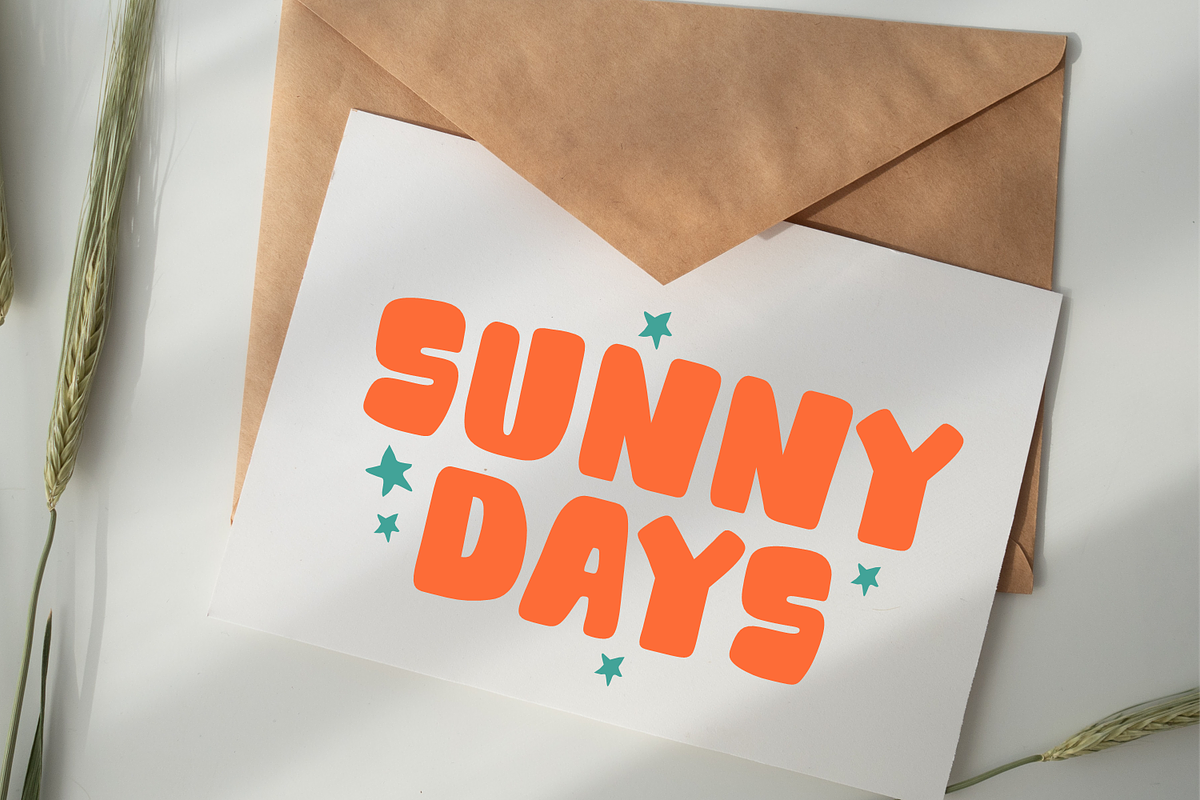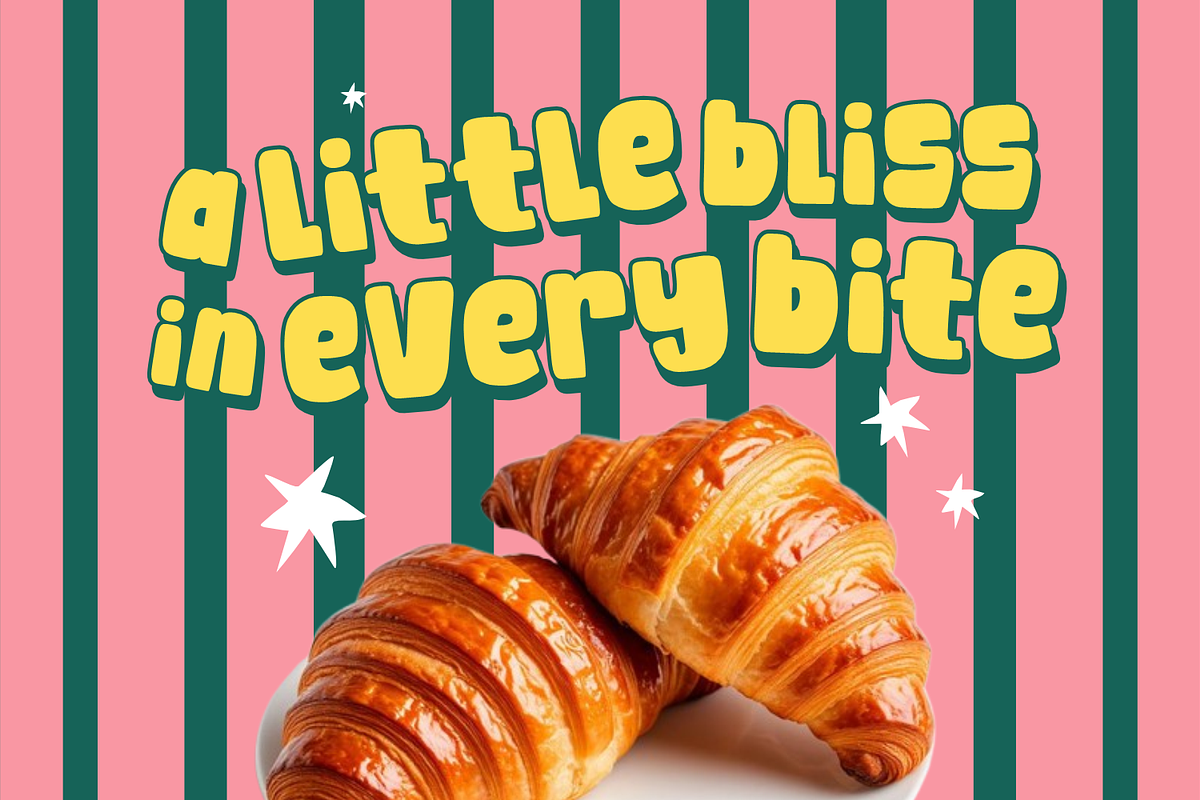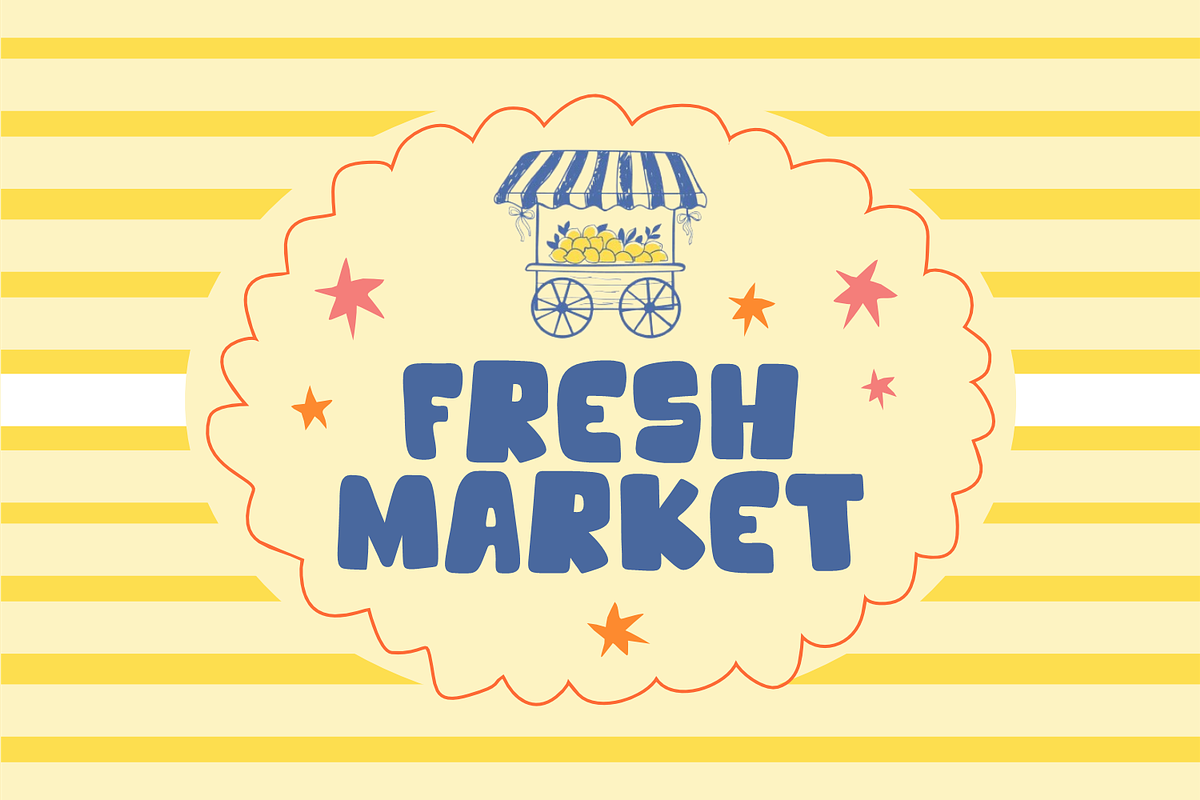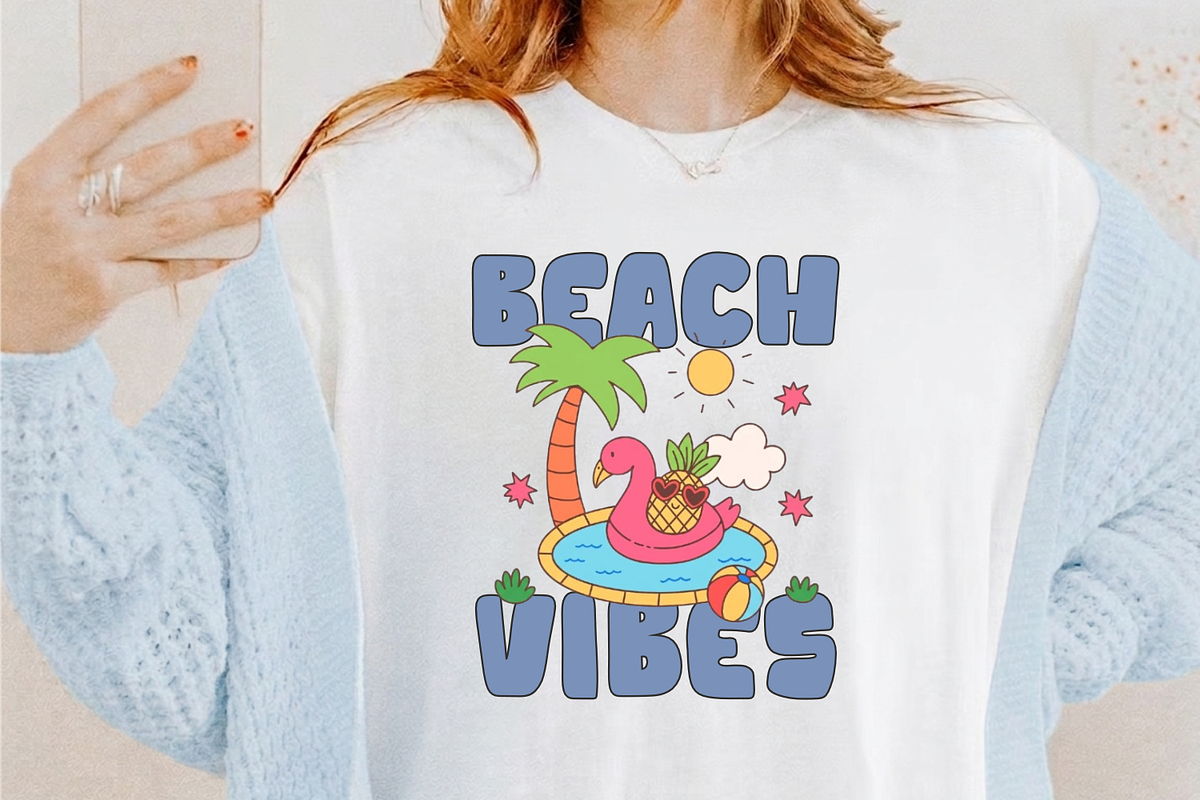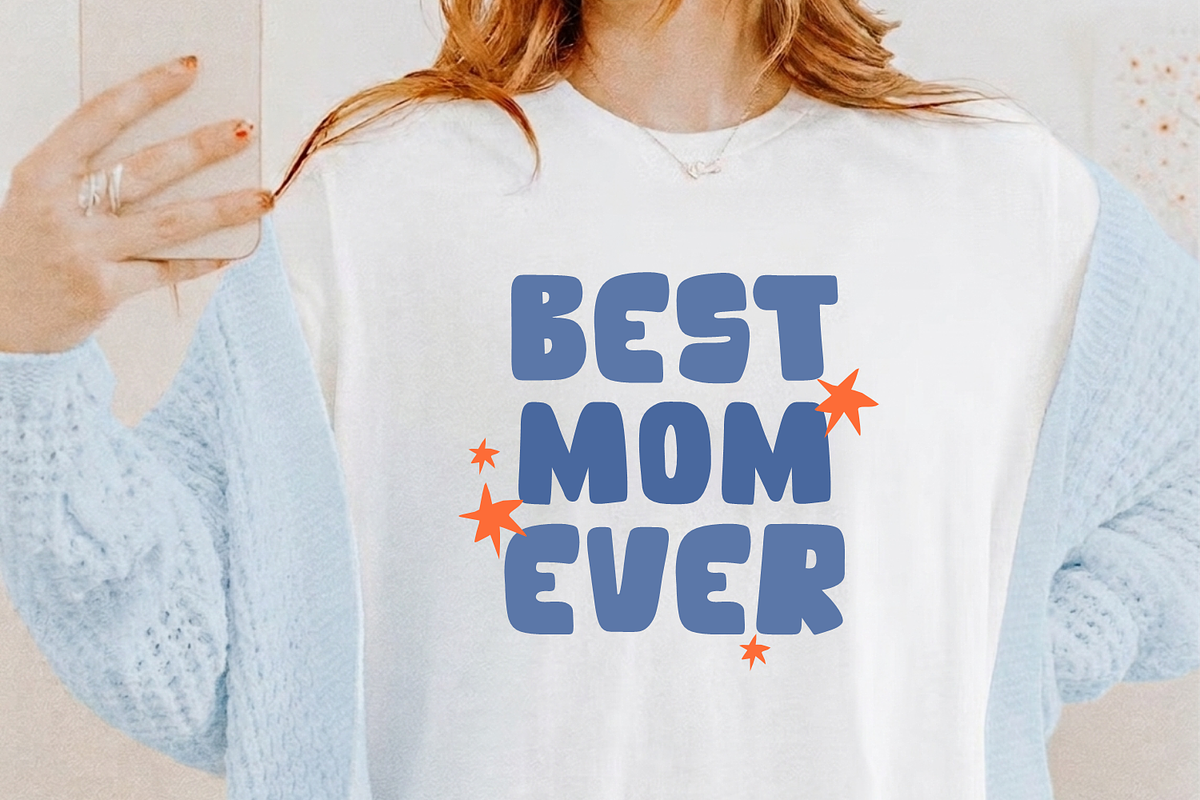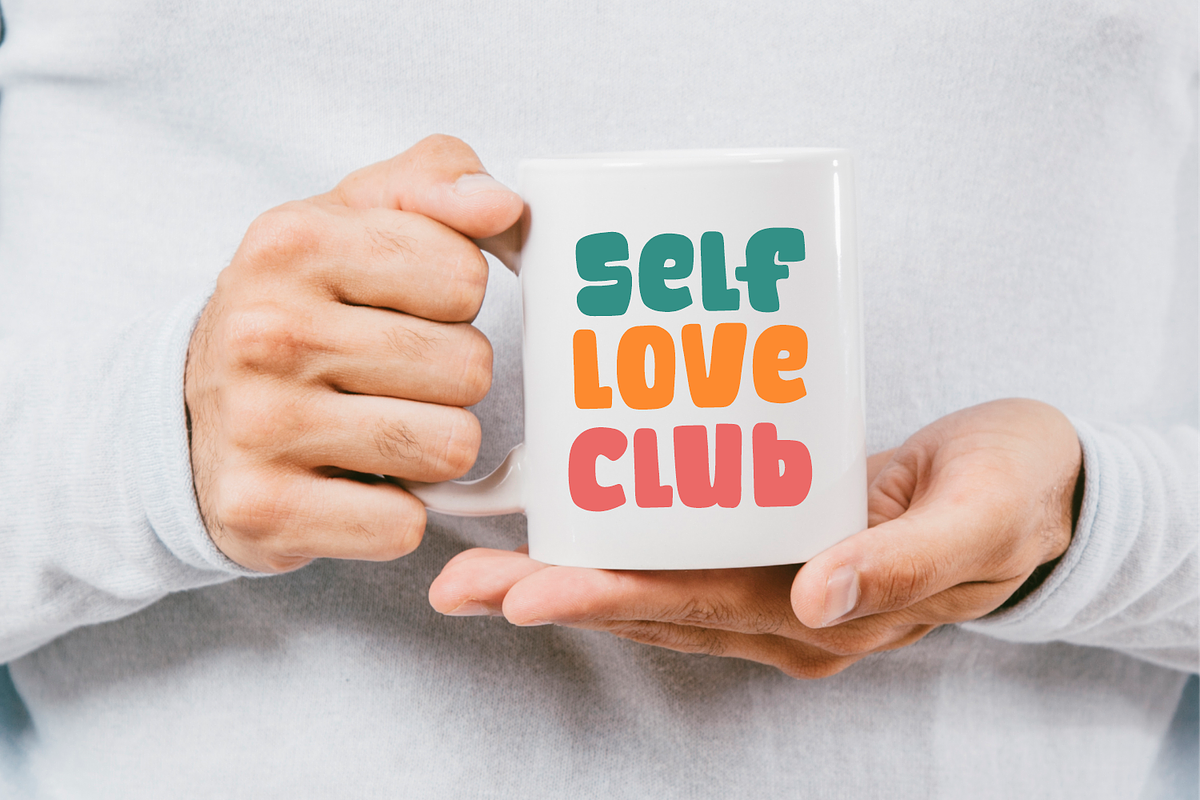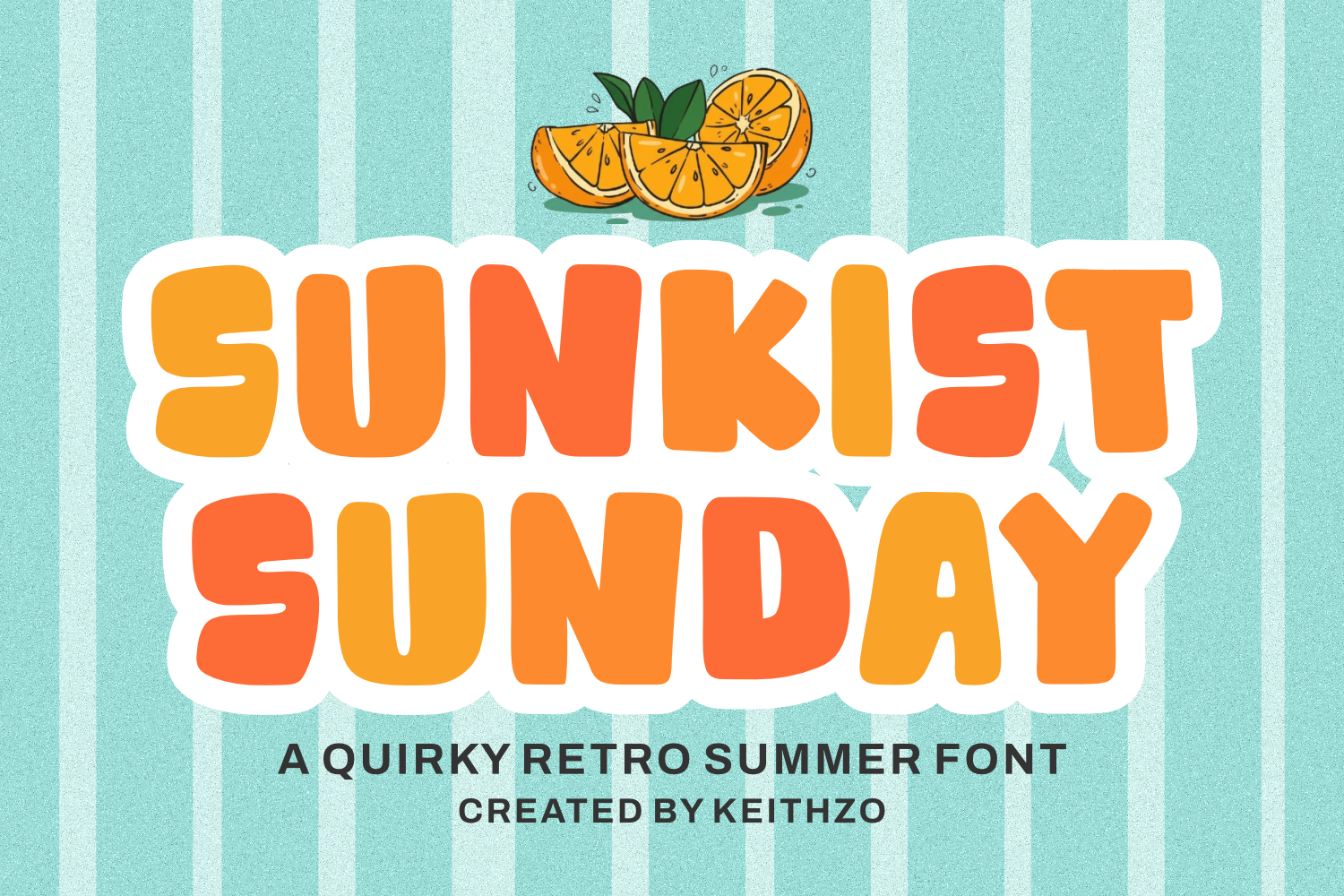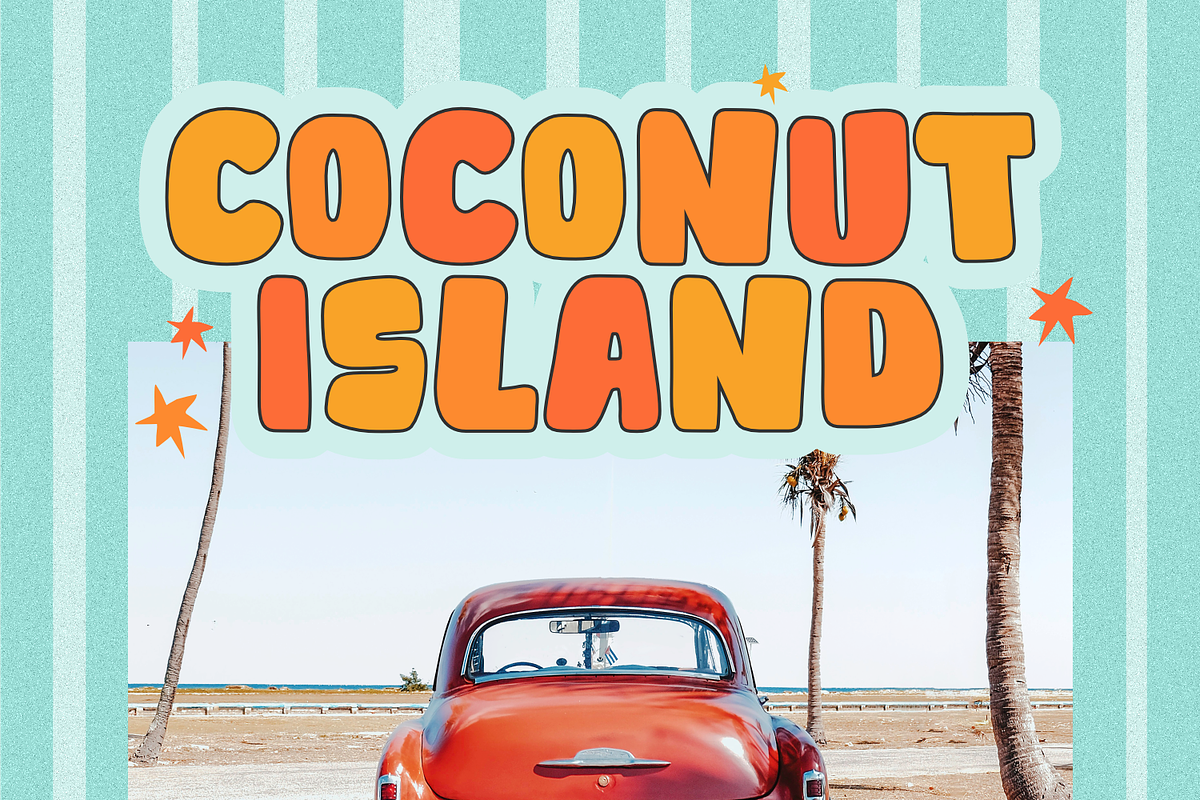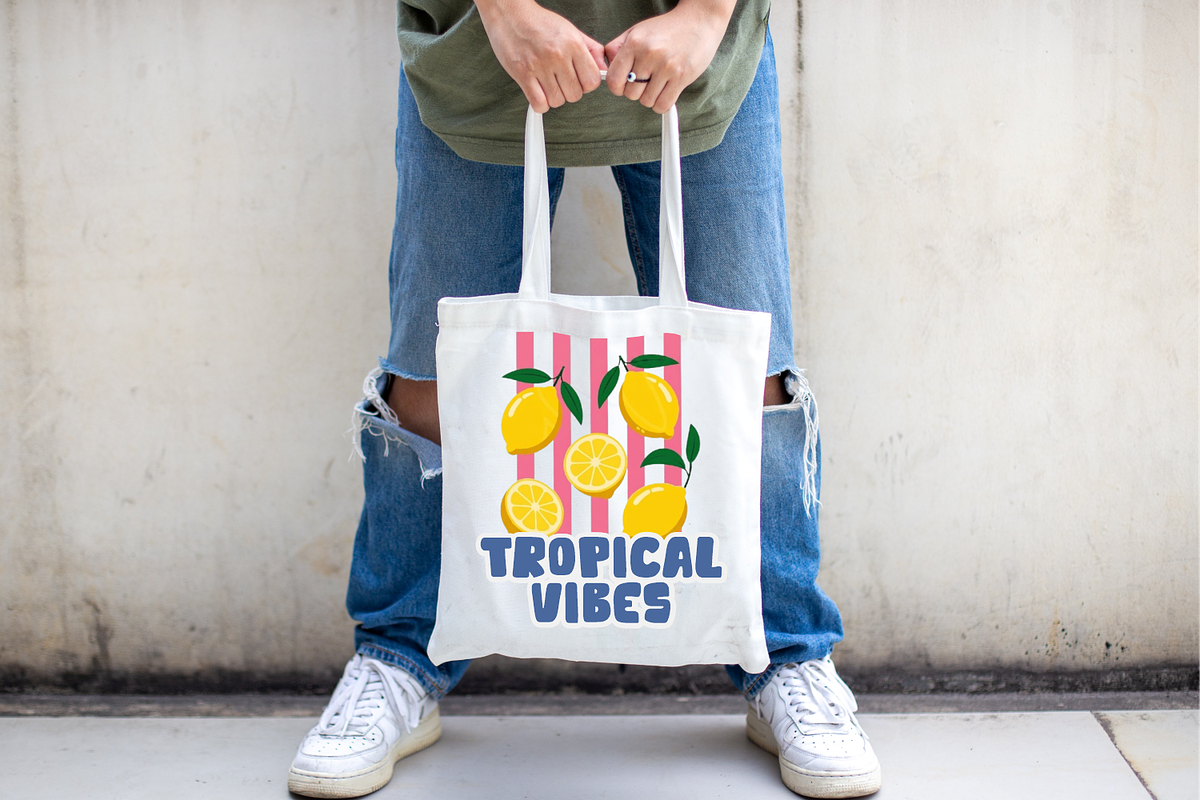
Sunkist Sunday - Playful Font
Sunkist Sunday Quirky Retro Display Font
Bring a burst of sunshine to your designs with Sunkist Sunday, a vibrant display font that perfectly captures the playful energy of the 70s retro aesthetic. Featuring bold, chunky letterforms with a hand-drawn feel, this font is designed to make your headlines pop and your branding stand out.
Its bubbly yet legible structure makes it incredibly versatile for a wide range of creative projects. Whether you are designing summer themed merchandise, trendy social media graphics, or eye-catching packaging, Sunkist Sunday adds an instant touch of joy and nostalgia.